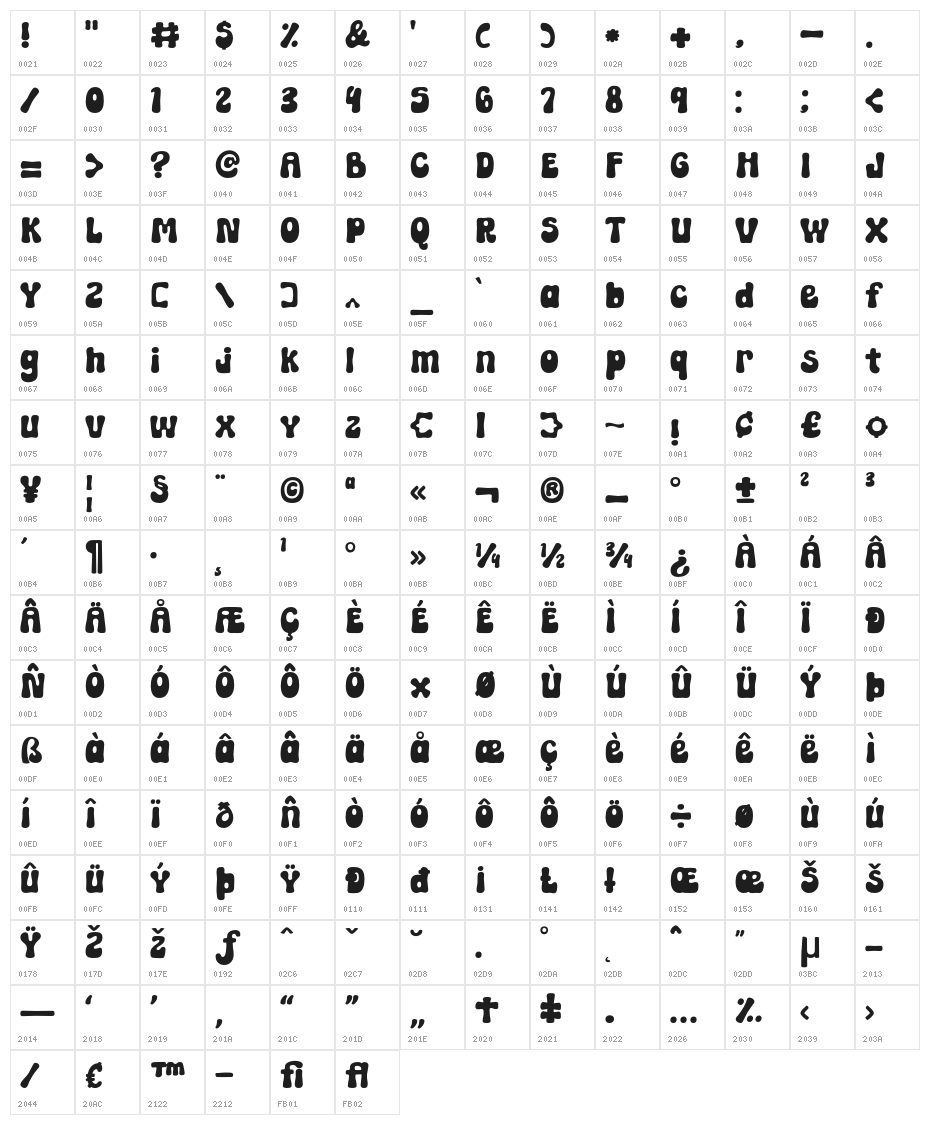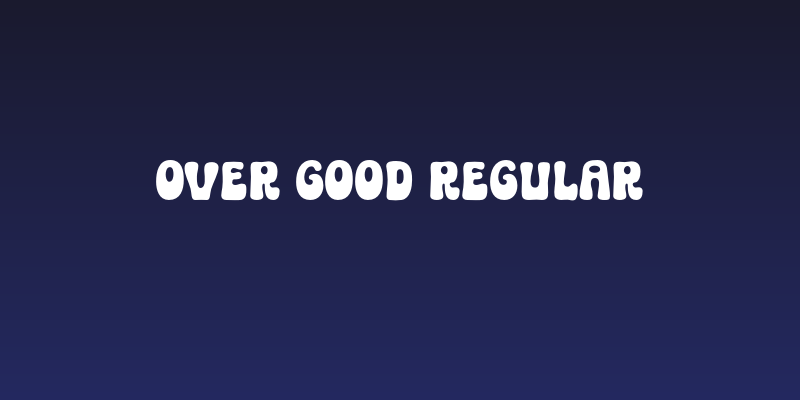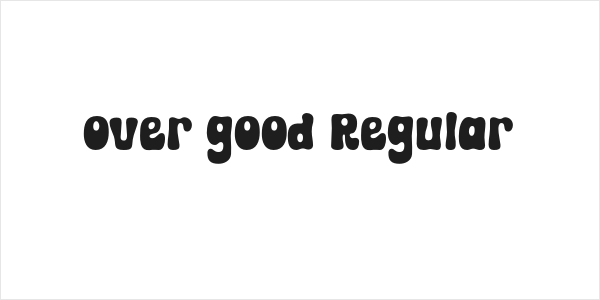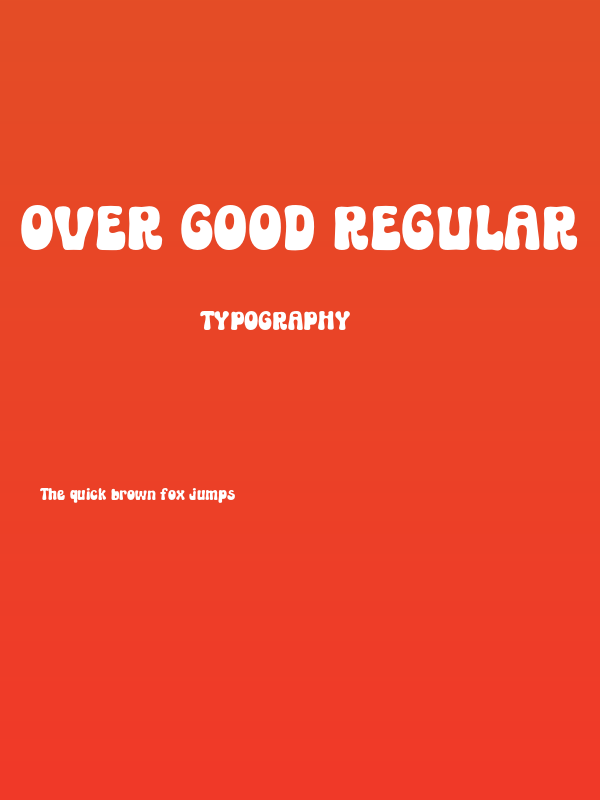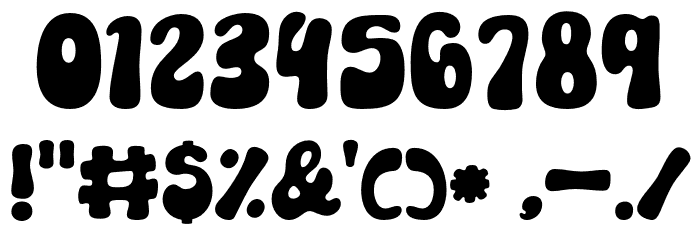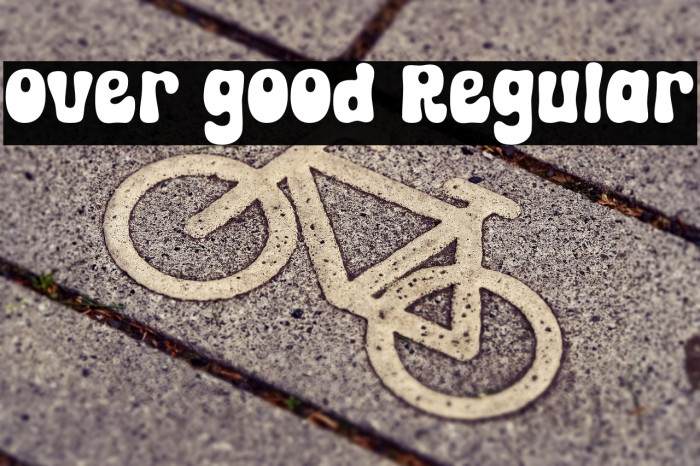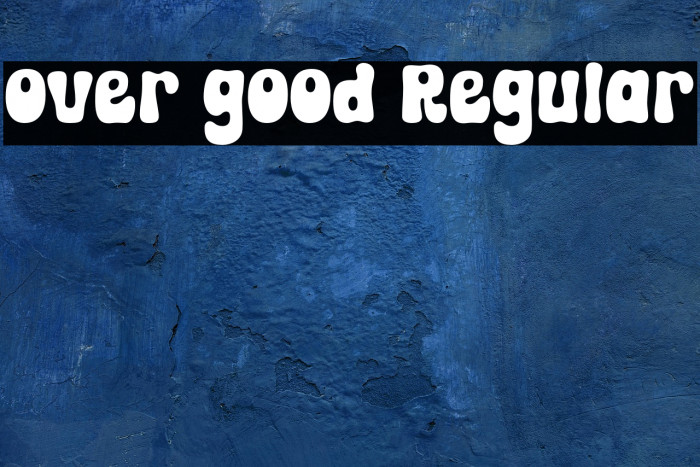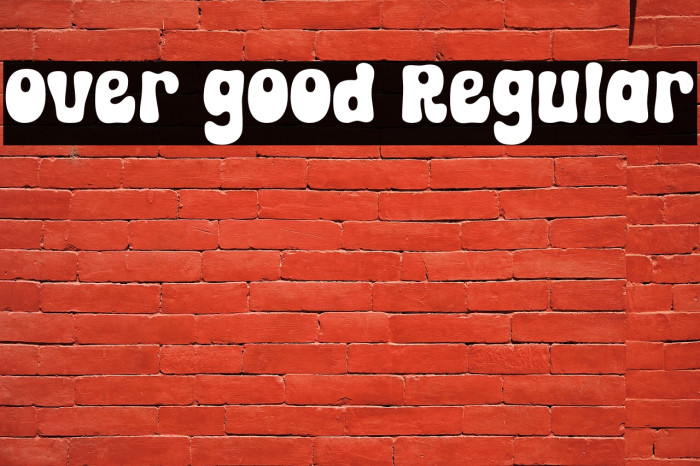
over good Regular Font
over good Regular Description
This font features a playful and bold design with rounded, bubbly characters that convey a sense of fun and creativity. The letters are thick and have a soft, almost inflated appearance, making them stand out prominently. The style is consistent across both uppercase and lowercase letters, as well as numbers and special characters, maintaining a cohesive look. The font is highly legible and its unique style makes it ideal for projects that require a touch of whimsy and boldness.
| Overall Style | Playful, Creative |
| Proposed Projects | Ideal for children's books, playful branding, posters, and creative advertising. |